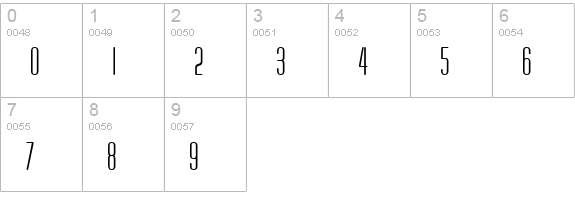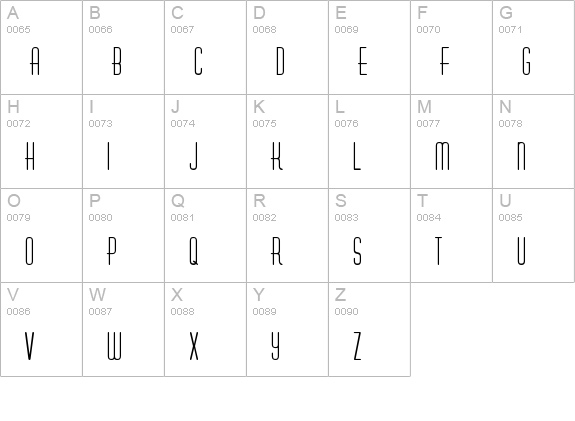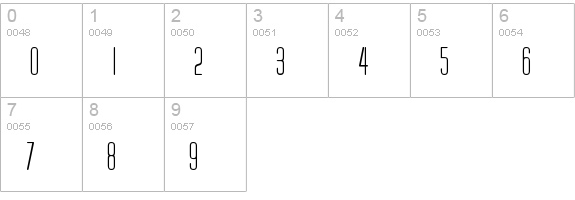
Kimono Font Details
Kimono font is a stunning and elegant typeface that is perfect for adding a touch of sophistication to your designs. With its unique and intricate details, this font is sure to make a statement and captivate your audience. The flowing strokes and delicate curves of Kimono font exude a sense of grace and beauty, making it a versatile choice for a wide range of design projects. What's even better is that Kimono font is available for free download at FontsMarket.com. Whether you're working on a branding project, a website design, or a creative layout, Kimono font will elevate your work and give it a touch of luxury. Don't miss out on the opportunity to enhance your designs with this exquisite typeface. Download Kimono font today and bring a touch of elegance to your projects.